This year’s Special Recognition goes to Atefeh Mohammadi, whose remarkable contributions to Persian type design extend far beyond her own practice.
By building spaces for dialogue, education, and collaboration, she has strengthened an entire community of designers, researchers, and students. Her projects, such as Quick Studio and Tehran Type Week, demonstrate how generosity and vision can transform a field, ensuring that knowledge is shared and new voices are empowered.
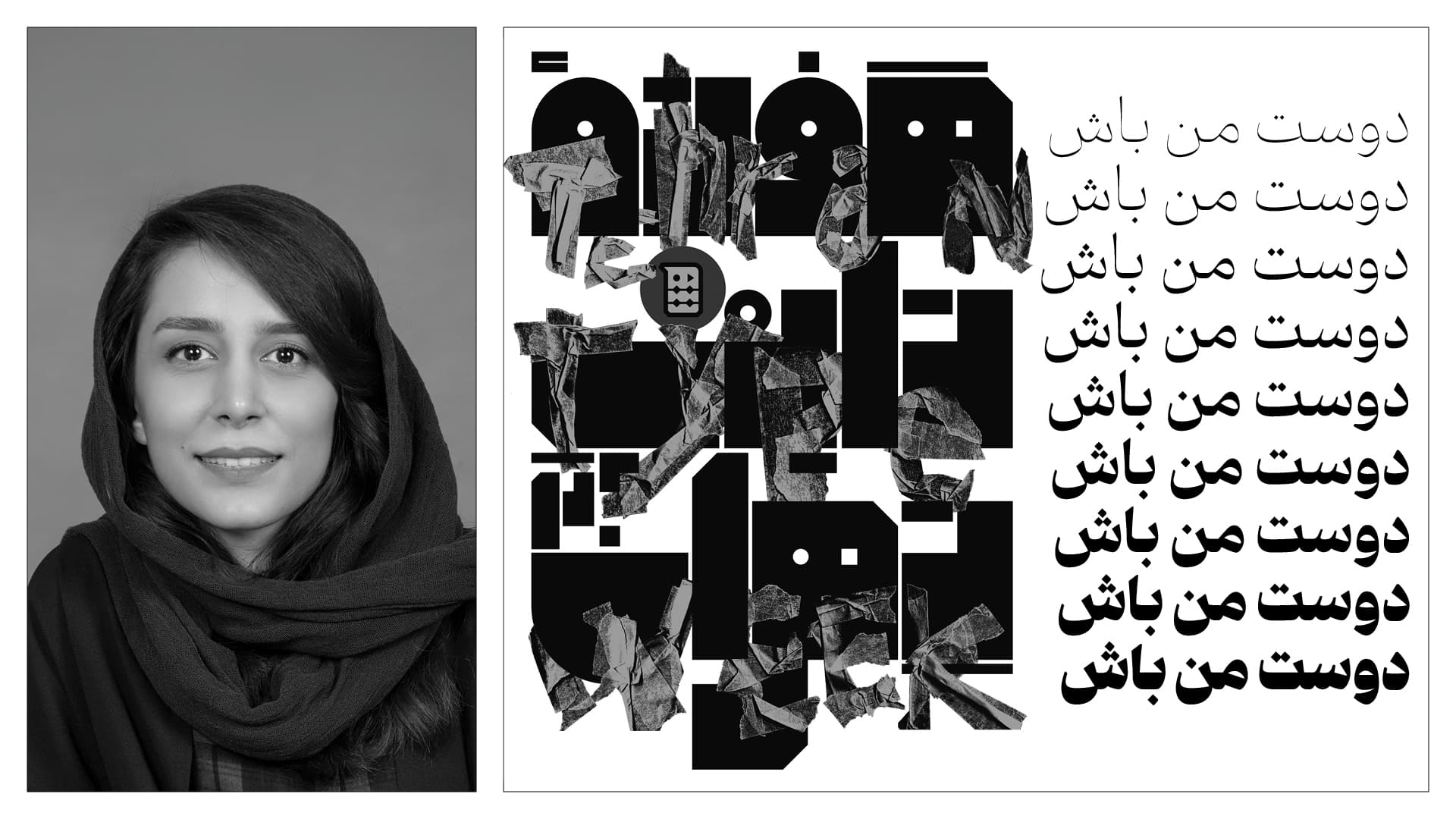
Atefeh Mohammadi is a type designer and researcher working at the intersection of design, cognitive science, and cultural studies. From the beginning of her career, she has been driven by the question of how Persian type can be simultaneously legible, rooted in tradition, and adaptable to the digital age. Her research began with the history of Persian calligraphy and classical styles, gradually expanding to topics such as readability and reading behavior in both print and digital environments. She has presented her work at international conferences including ATypI and Typewknd. She approaches type design as a problem-solving process that requires deep understanding, user-centered research, and the creation of enduring resources for the field.
She is the founder of Quick Studio, a platform for accessible educational content, and the organizer of Tehran Type Week, the first specialized Persian type event in Iran with international recognition. Her current focus is on strengthening collaborations among Arabic and Persian type designers and developing research projects. For her, type is not merely a writing system; it is a vessel of cultural memory and a tool to engage readers and convey messages effectively.
M. S.: Tell us a bit about your upbringing in Tehran. How has your background - your family, where you come from, and your heritage - shaped who you are today and influenced your interest in letterforms?
Atefeh Mohammadi: I was born and raised in Tehran, a city rooted in the Qajar era; a historical moment when Iranian culture and art began merging with Western technology and ideas. This duality still defines the city’s atmosphere: a constant tension between tradition and modernity, visible in everything from architecture to daily life. Growing up in this context shaped how I see the world. It made me question how we balance heritage with change. This question was never abstract—it surfaced in our conversations, decisions, and even the smallest social gestures. It became the foundation of how I think and how I engage with the world around me.
“To preserve the identity of Persian typography, we must first recognize, analyze, and define it clearly.”
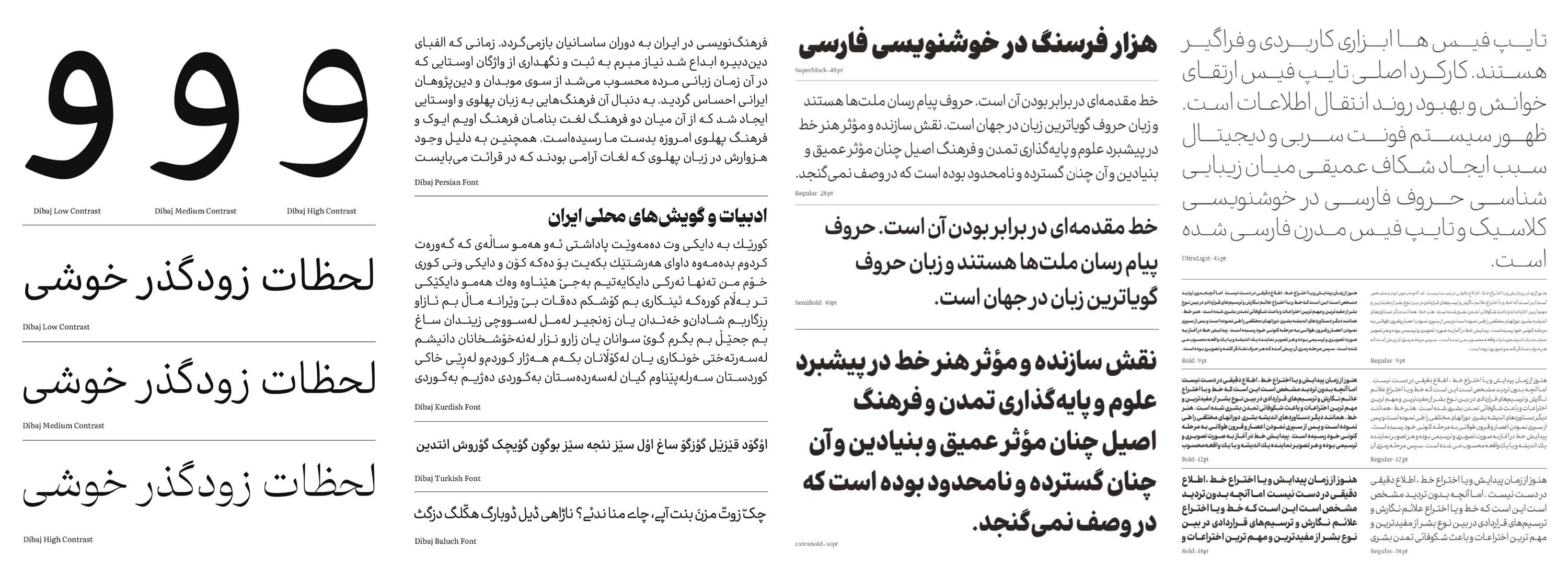
M. S.: Dibaj is such a beautiful and rich Arabic-Persian text typeface, with its nine weights and three different contrasts. How did the design process begin, and what were your initial inspirations and goals?
Atefeh Mohammadi: Dibaj was my first experience in type design. At the beginning, I encountered questions about the identity of the Persian script and its calligraphic traditions, and how these could be balanced with legibility and readability. With no educational resources available, I turned to research. I studied and combined the rules of Naskh and Muhaqqaq: Muhaqqaq’s large counters and high x-height supported legibility, while Naskh’s kerning, tracking, and baselines enhanced readability. But were these structures still effective for today’s readers?
These questions led me to field studies. I tested reading behavior in a lab and identified key factors behind readability. Dibaj was designed based on these findings and shaped around the preferences and visual habits of Persian readers. Its weights and contrasts make it suitable for both print and digital use.
The same research method was applied to the design of the Noora typeface, with one key difference: Noora was created specifically for web use. It was designed around user reading behavior on screens, providing maximum clarity and readability in digital environments.
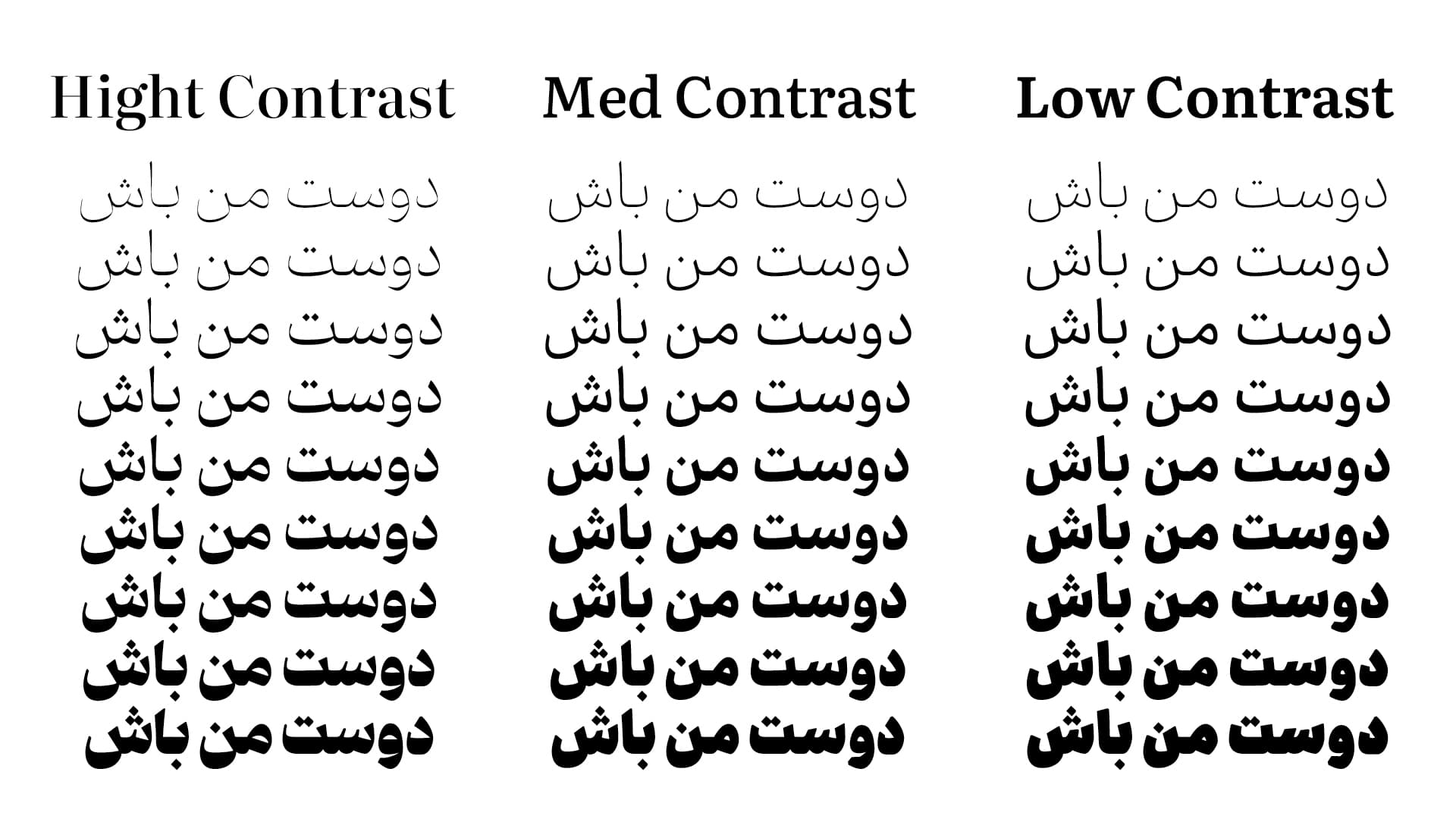
M. S.: Your work bridges the gap between research and practice. What do you think are the most important steps for preserving the identity of Persian typography in contemporary designs?
Atefeh Mohammadi: To preserve the identity of Persian typography, we must first recognize, analyze, and define it clearly. This identity is rooted, on one hand, in the history of Persian calligraphy and its gradual evolution, and on the other, in a deep understanding of the visual preferences and reading habits of today’s audience. My research seeks to reconcile these two perspectives: historical tradition and the contemporary world.
Throughout its history, Iran has absorbed influences from many cultures, yet has consistently reshaped them according to its own tastes and requirements. The same is true of calligraphy. A close study of how Iranians adapted letterforms and calligraphic rules reveals how Persian script achieved a distinct identity. But is that identity still aligned with the needs of today’s readers? To answer this, I identified the factors that shape identity, tested them with contemporary readers, and, based on the findings, designed typefaces—a practical method for preserving identity in the modern world.
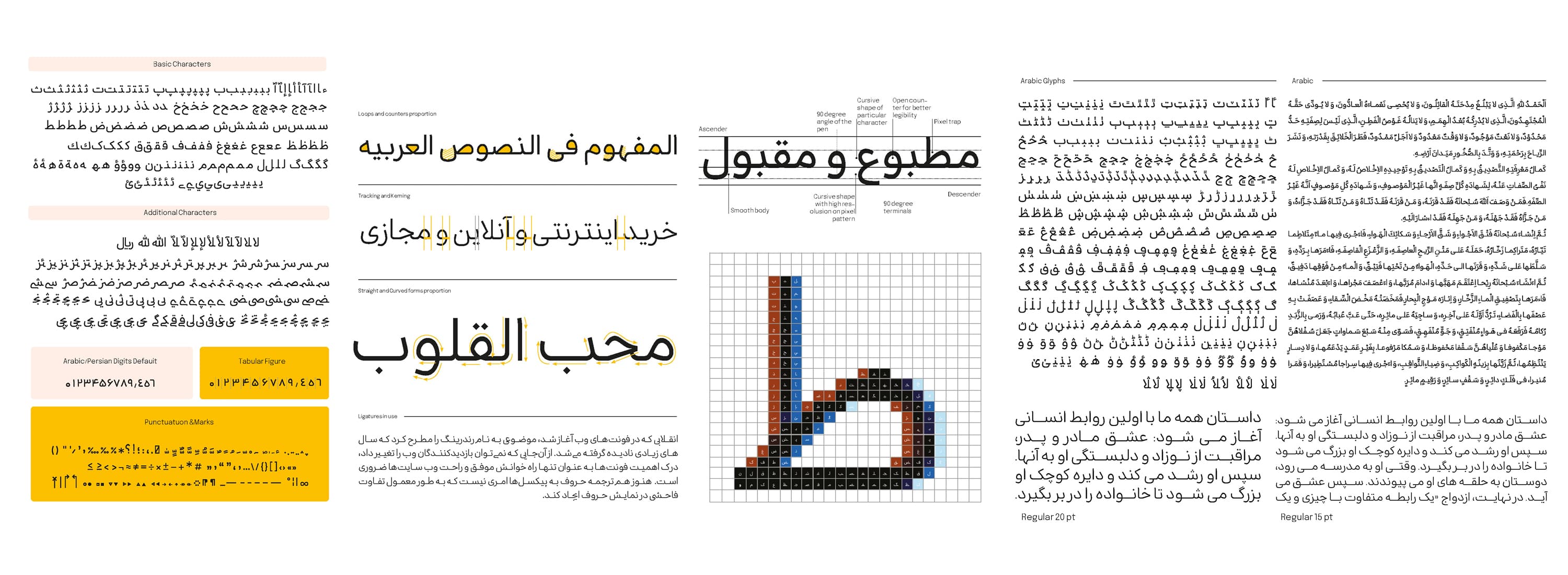
M. S.: Can you tell us about the origins of Quick Studio and what motivated you to create the platform?
Atefeh Mohammadi: As I mentioned before, there were no educational resources for Persian type design. For years, I searched for answers on my own, studying, comparing, and experimenting. When I started teaching at university, I turned my findings into a course syllabus. Over seven years of teaching helped me understand effective learning paths. I decided to make this knowledge public, beyond universities. That’s how Quick Studio was launched on Instagram. I chose the name “Quick” because my goal was to teach Persian type design in a fast and practical way. I created posts that ranged from basic concepts to complex research topics, summarized books and articles, and shared them with my audience. The biggest challenge was conveying ideas clearly in just a few slides, but it was well received. I tried to fill the gaps I once faced for the next generation of type designers. I’m happy this path became a source of inspiration.
I warmly invite all those who share this vision to join us. Together, we can build greater momentum. We extend a hand of collaboration to everyone who shares our concerns and goals.